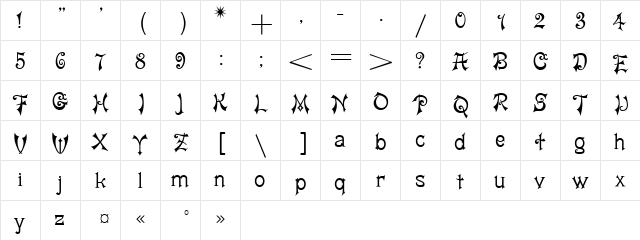
Matilda Regular
| Designer | Gophmann A.L. |
Design Context for Matilda Typeface
Matilda is a composed and adaptable typeface that performs quietly and consistently across a wide range of design contexts.